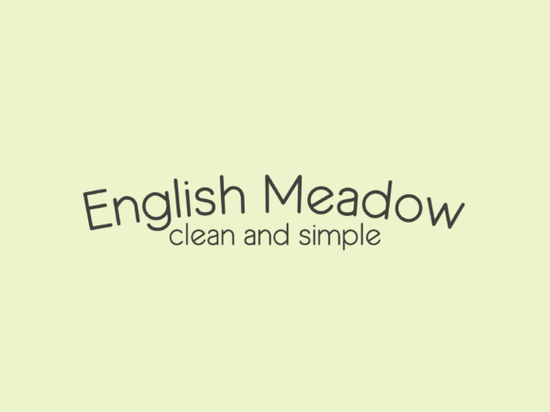
If you're looking for a clean, friendly sans-serif font that works just as well on a hand-painted mug as it does on a modern shop banner, the English Meadow Font is worth your attention. It’s not overly decorative or hard to read at small sizes instead, it strikes a quiet balance: handmade warmth with everyday clarity. Designers and crafters often tell us they reach for it when they need something approachable but still distinctive, especially for labels, home decor signs, custom apparel, and printable wall art.
What makes English Meadow different from other sans-serifs?
Most sans-serif fonts fall into two camps: ultra-minimal (think geometric or tech-inspired) or slightly quirky (with exaggerated curves or uneven strokes). English Meadow sits comfortably in the middle. Its letterforms have gentle, organic shaping especially noticeable in the lowercase a, g, and r but nothing so bold that it distracts from the message. That subtle craftsmanship comes through without needing extra flourishes or ligatures.
It’s also designed with real-world use in mind. The spacing between letters feels natural not too tight, not too loose so it holds up well on curved surfaces like mugs or tumblers. And because it’s a single-weight, no-frills font family, it loads quickly and works smoothly in most design apps, including Canva, Cricut Design Space, and Silhouette Studio.
Where do people actually use this font?
We’ve seen English Meadow shine in a few practical, repeatable ways:
- Personalized drinkware: Names or short quotes on ceramic mugs, glass water bottles, or acrylic tumblers especially popular with wedding favors or small-batch Etsy shops.
- Home labeling: Pantry jars, spice racks, and bathroom organizers where legibility matters more than drama.
- Print-on-demand basics: Minimalist T-shirts, tote bags, and tea towels where the design should feel warm, not sterile.
- Digital printables: Monthly planners, habit trackers, or kids’ activity sheets places where readability and gentle personality both matter.
It’s not meant for headlines that need to shout, nor for long paragraphs of body text. Think of it as your go-to “friendly voice” font the kind you’d choose when you want people to feel welcomed, not impressed.
How does it compare to similar handmade fonts?
If you already own or have tried the Handmade Wanderlust Duo Font, you’ll notice English Meadow shares its relaxed, human-made energy but with less contrast and fewer stylistic variations. Wanderlust Duo includes both serif and sans-serif options plus alternate characters, making it great for layered designs. English Meadow, by contrast, is simpler and more focused: one clean weight, consistent rhythm, and zero distractions. That makes it easier to use consistently across product lines say, matching labels for a set of six candle scents.
For crafters who prefer working with just one reliable font instead of juggling multiple weights or styles, this simplicity is a real time-saver. You won’t need to adjust tracking or kerning as often, and you’re less likely to second-guess whether a particular word “feels right.”
Is it compatible with common tools and workflows?
One thing users appreciate: the file is lightweight and opens fast even on older laptops or tablets used for quick on-the-go edits. No lag, no missing glyphs, no need to hunt down alternate versions.
A simple way to get started
You don’t need a full branding system to test it out. Try this:
- Pick a short phrase “Good Morning,” “Herbs & Honey,” or even just a name.
- Type it in English Meadow at 36–48 pt size on a white background.
- Print it on sticker paper or cut it on your Cricut/Silhouette.
- Apply it to a plain ceramic mug or wooden box.
You’ll immediately see how its soft edges and open spacing translate to physical objects and why so many small businesses keep it in their core font folder.
If you’re building a cohesive look across products, consider pairing English Meadow with a simple serif (like Playfair Display) for headings, or using it alone with plenty of white space. Less really does feel more here.
Tip: Before scaling for production, always test a 2-inch version on your actual material especially if you’re cutting vinyl or printing on textured surfaces. The font’s subtlety means it can fade visually if scaled too small or printed too lightly.